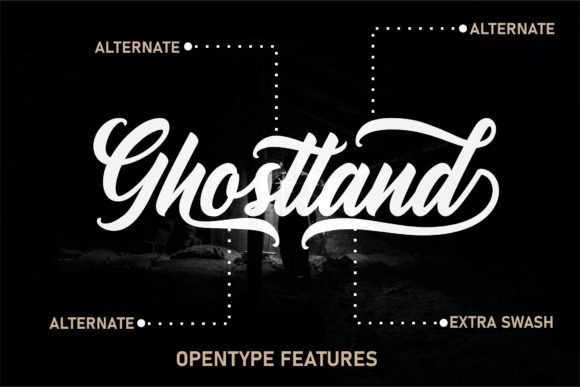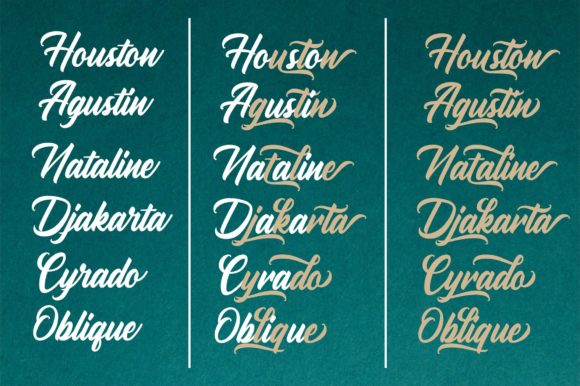
Pickpath Font
db-ku.com - Script & Handwritten -- Pickpath is a gorgeous and bold handwritten font, crafted to give your headlines and logotype projects a retro touch. This font reads as strong, confident, and dynamic and can add tons of nostalgic character to your designs. Pickpath is PUA encoded which means you can access all of the glyphs and swashes with ease!